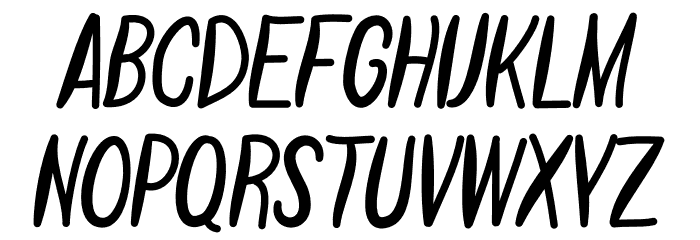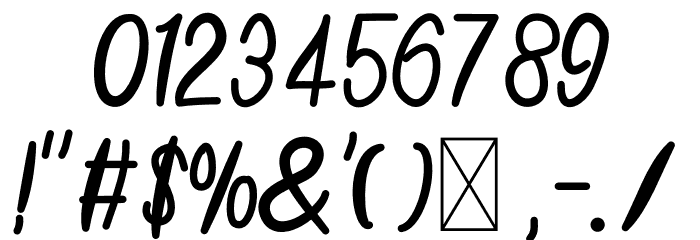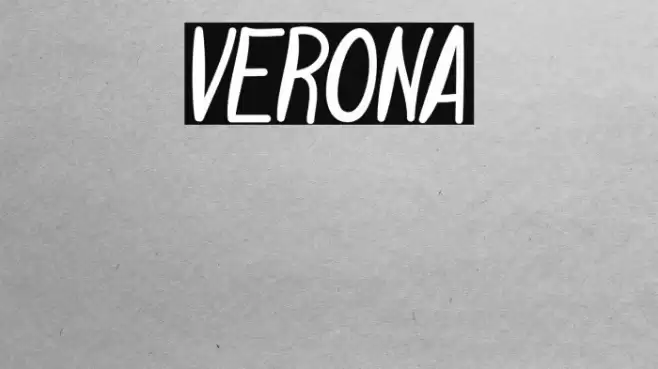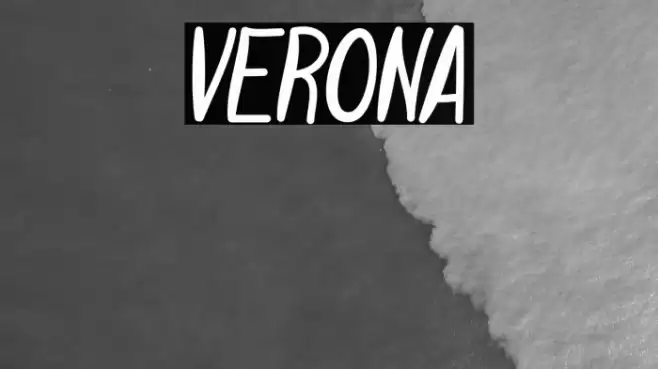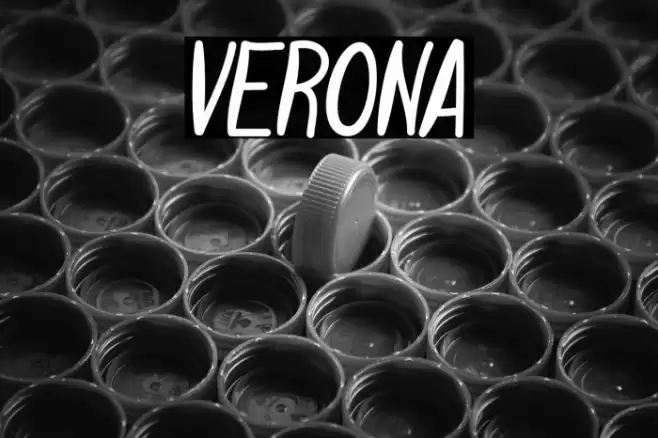
Verona Font
This font features a playful and energetic script style with a handwritten feel. The letters are slightly slanted, giving a sense of movement and dynamism. The strokes are smooth and rounded, contributing to a friendly and approachable appearance. The uppercase and lowercase letters maintain consistent proportions, ensuring readability. The numbers and special characters follow the same style, making them cohesive with the alphabet. This font is versatile, suitable for projects that require a personal touch or a casual vibe.
A playful, handwritten script font with smooth, rounded strokes.
- Proposed Projects: Ideal for greeting cards, invitations, posters, and branding that seeks a personal or casual tone.
- Overall Style: Casual
- Use Case: Headlines, Logos, Invitations